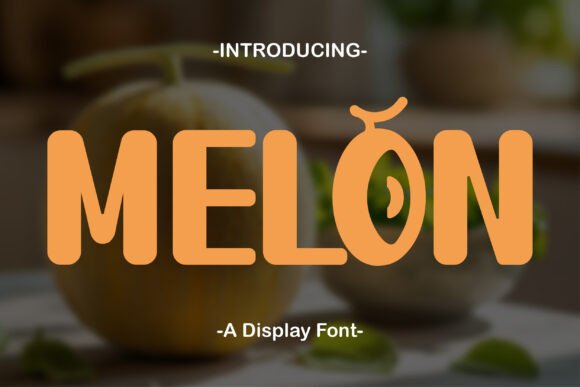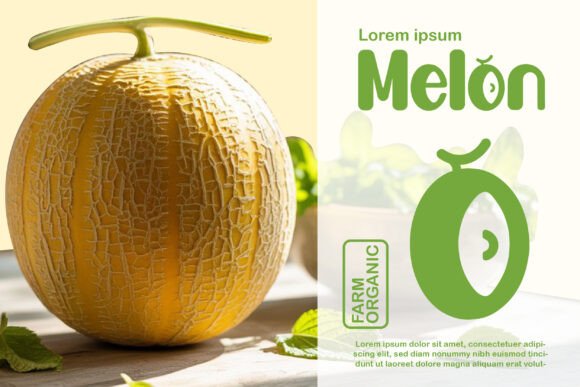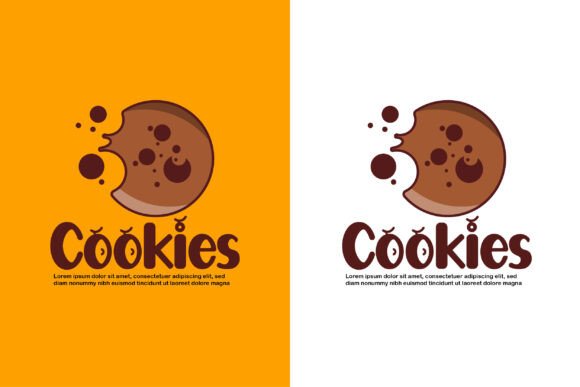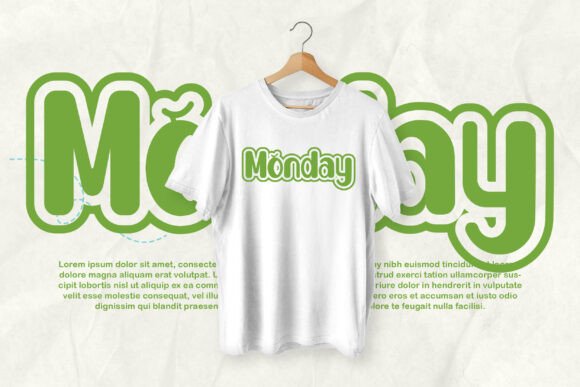
Melon Font: A Playful Display Font for Summer Designs!
About the Melon Font
Get ready to be inspired by Melon Font, a fresh and dynamic typeface for modern creators. Introducing Melon Font is a Unique display font, with its enchanting strokes and fanciful details, captures the vivid spirit of joyful times and instills positivity in every project. Whether you’re conjuring vibrant back-to-school visuals, fashioning charming greeting cards, or injecting a dash of fun into your home decor, Melon Font is your essential partner for brimming your creations with delight and novelty.
Melon Font’s playful, yet sophisticated design makes it ideal for headlines, short text blocks on posters, branding elements like logos and short taglines, and packaging for products targeting a younger demographic. It excels in situations where a touch of whimsy is desired, adding visual interest without overwhelming the design. However, its decorative nature makes it unsuitable for body text or UI elements requiring high readability. Extended use will hinder legibility.
Pairing Melon Font effectively requires considering its inherent energy. A clean sans-serif like Open Sans or Lato would provide a solid counterpoint, grounding the design and enhancing readability for supporting text. For a more playful approach, a rounded geometric sans-serif could amplify the fun, while a classic serif like Garamond would introduce a touch of refined elegance, creating a stylish contrast.
The overall personality of Melon Font is best described as cheerful and slightly quirky, making it suitable for brands focused on fun, creativity, and a youthful spirit. Avoid using it for projects demanding seriousness or sophistication.